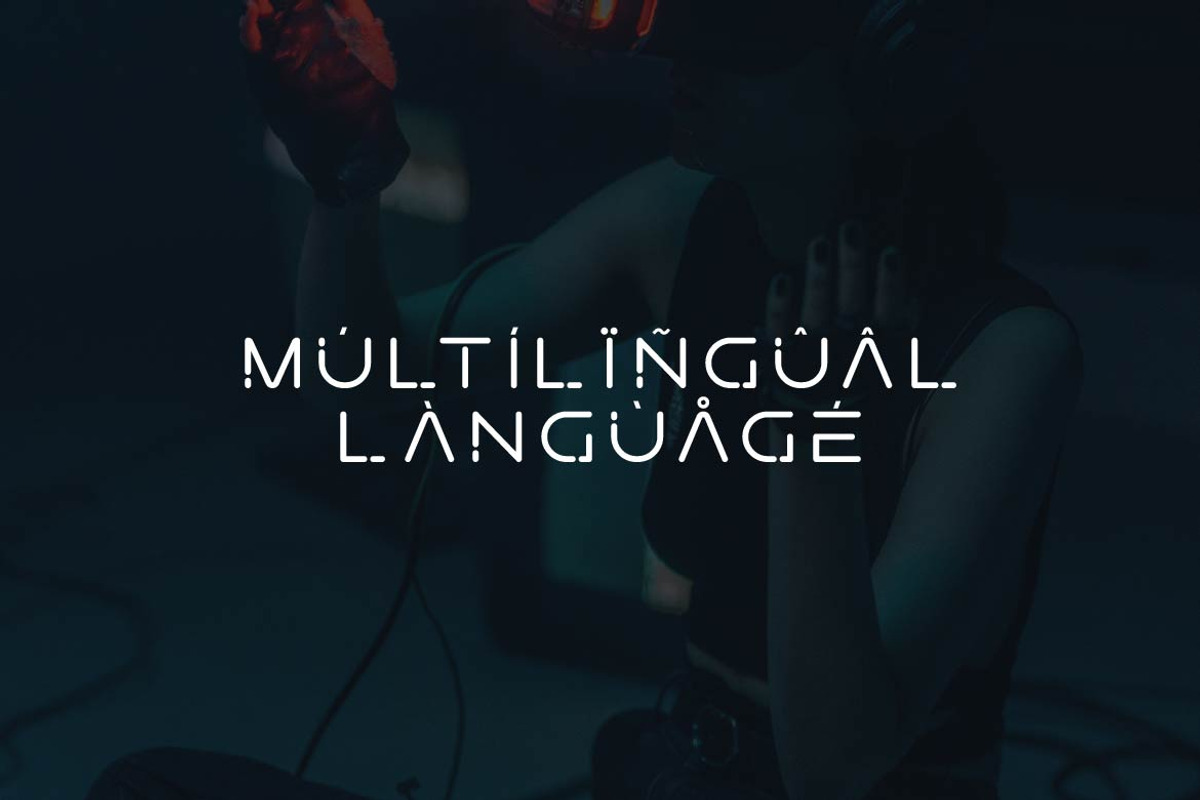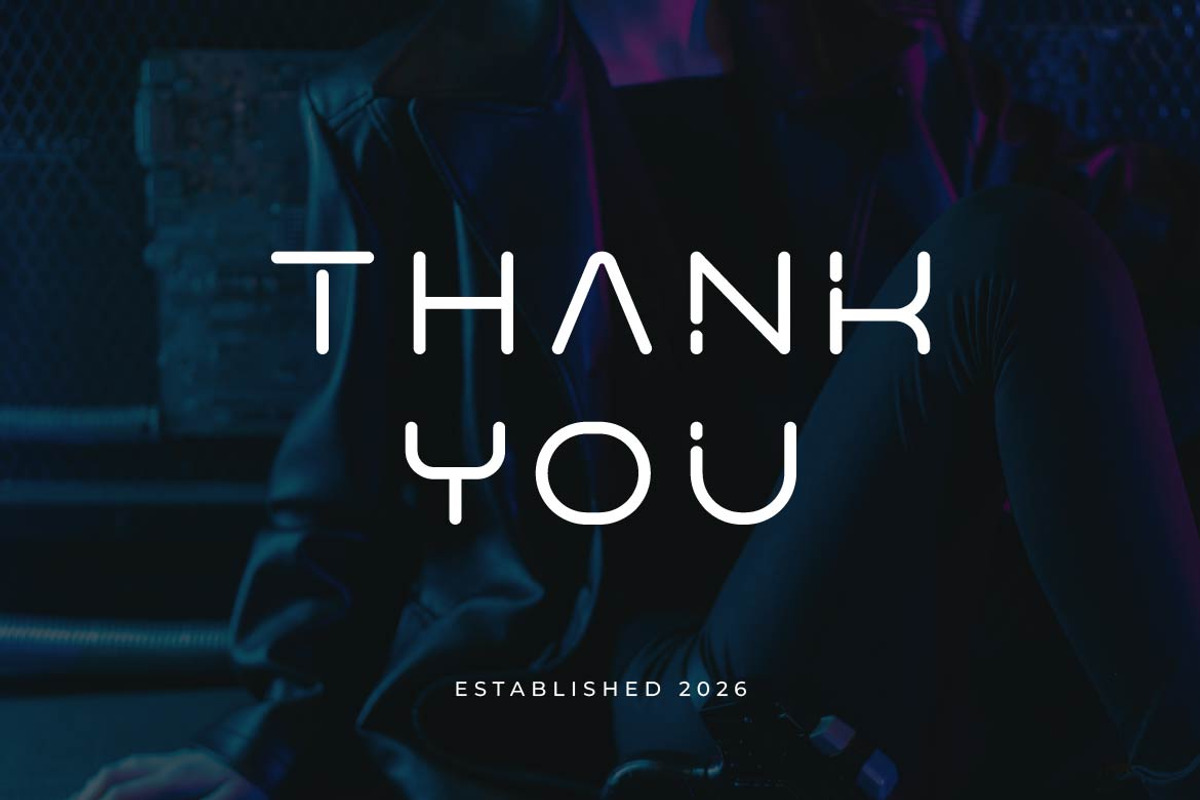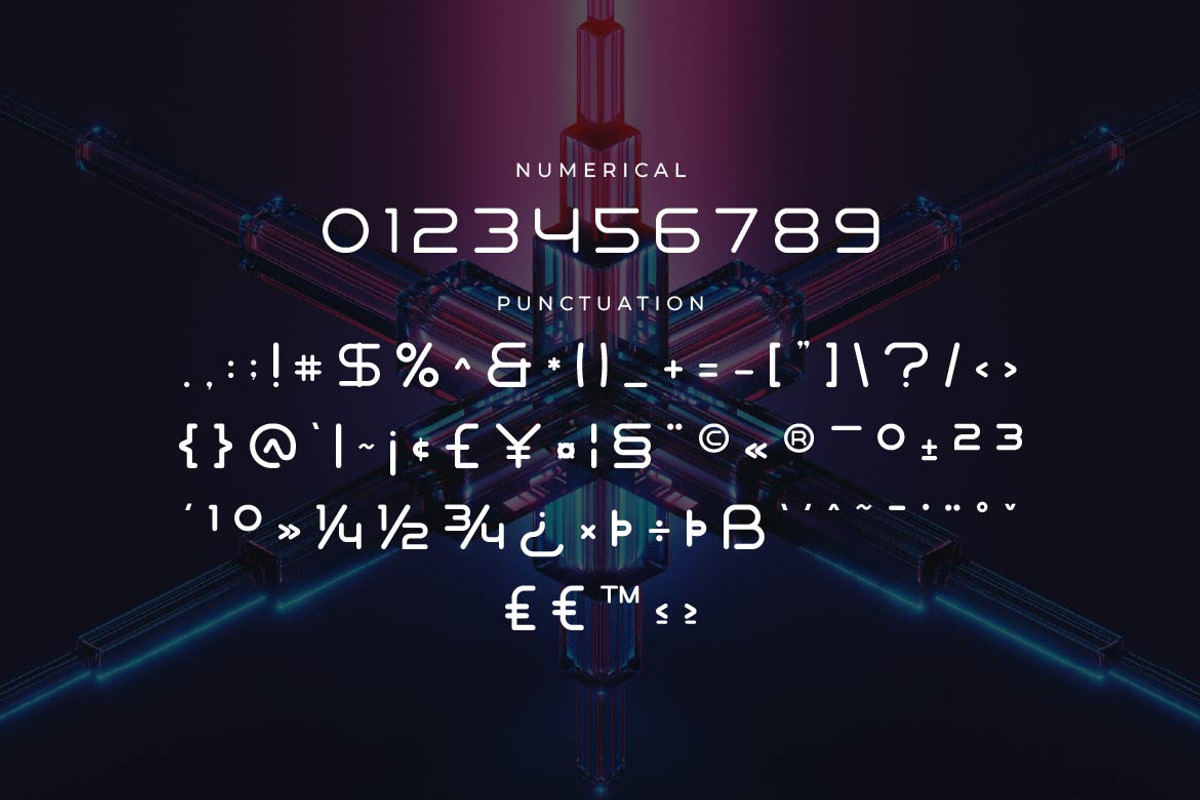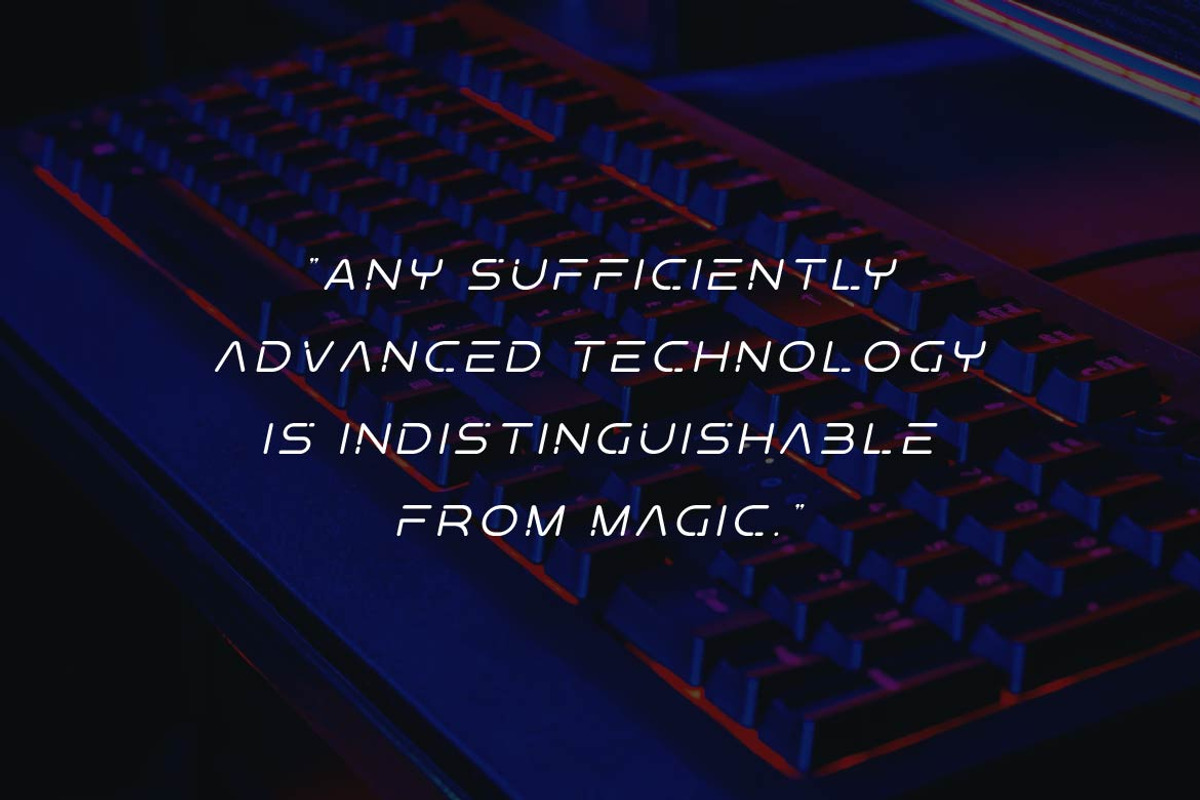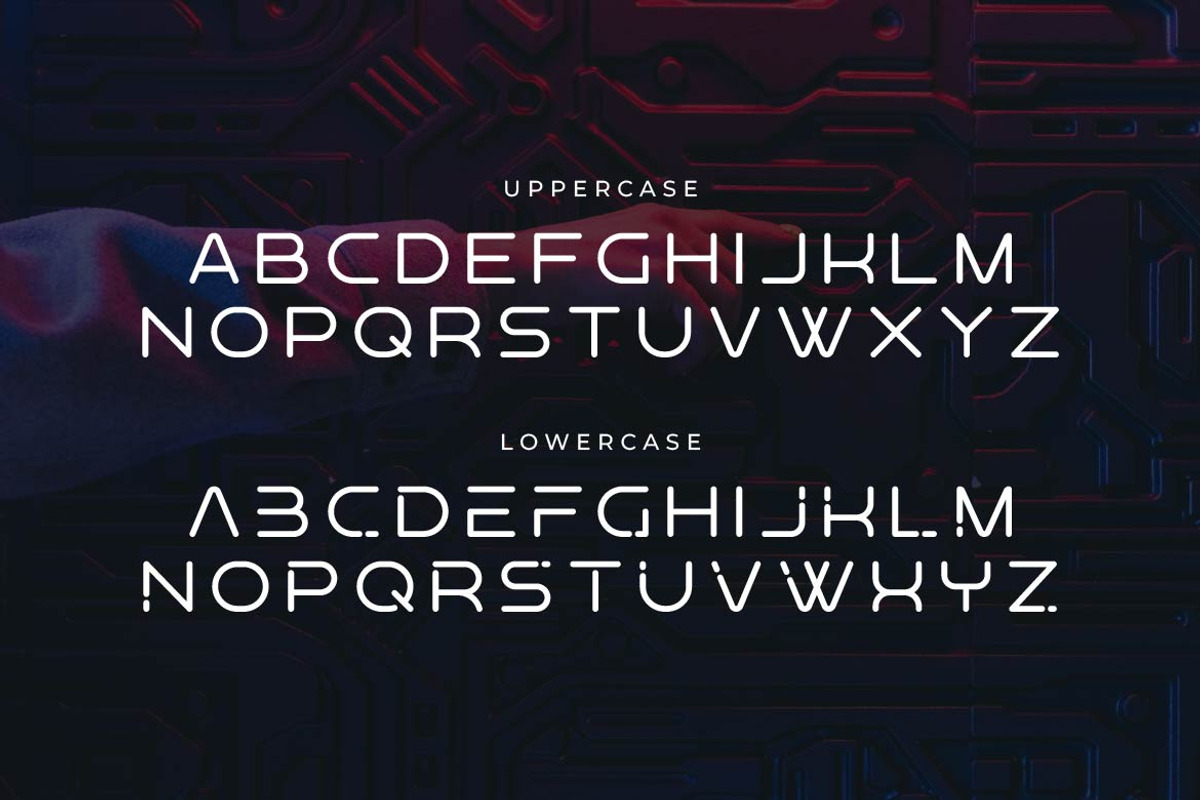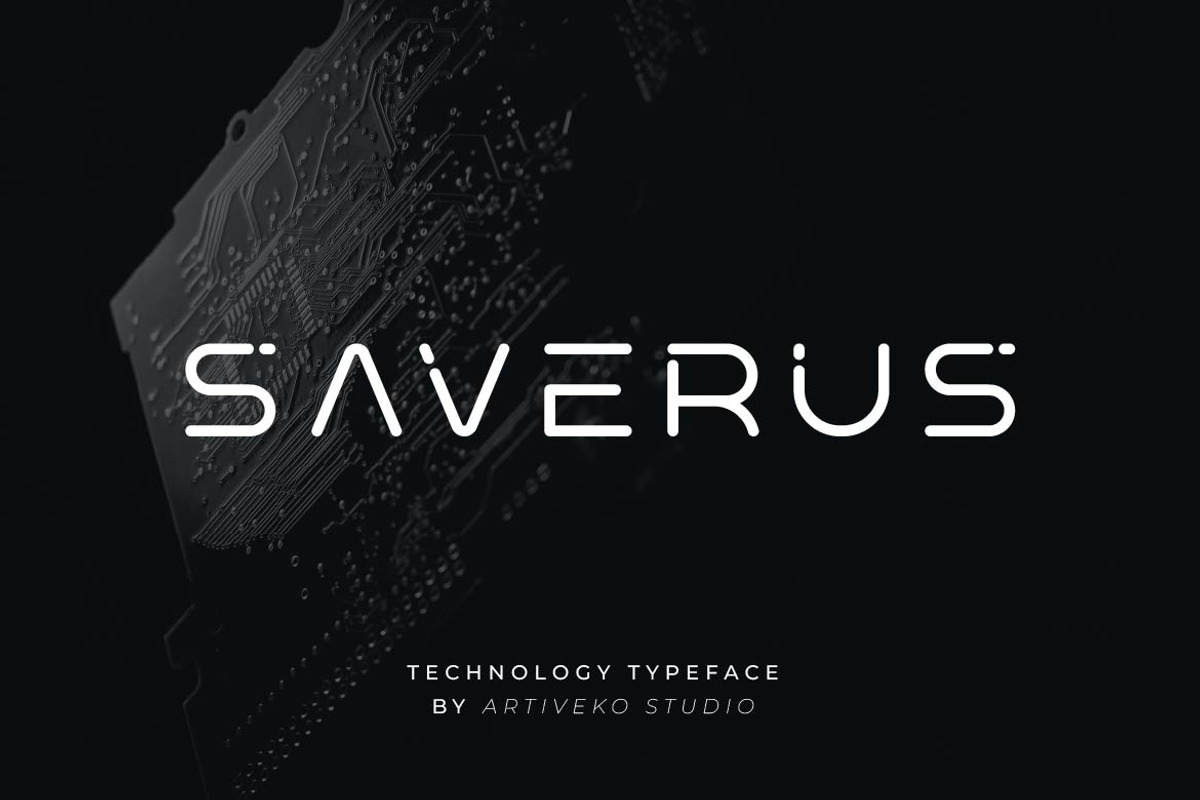
Saverus – Minimal Geometric Font
Saverus is a geometric sans serif typeface crafted for modern brands that value clarity, precision, and timeless design. Built on clean geometric forms and balanced proportions, Saverus delivers a refined visual language that feels both professional and contemporary.
Ton of glyphs